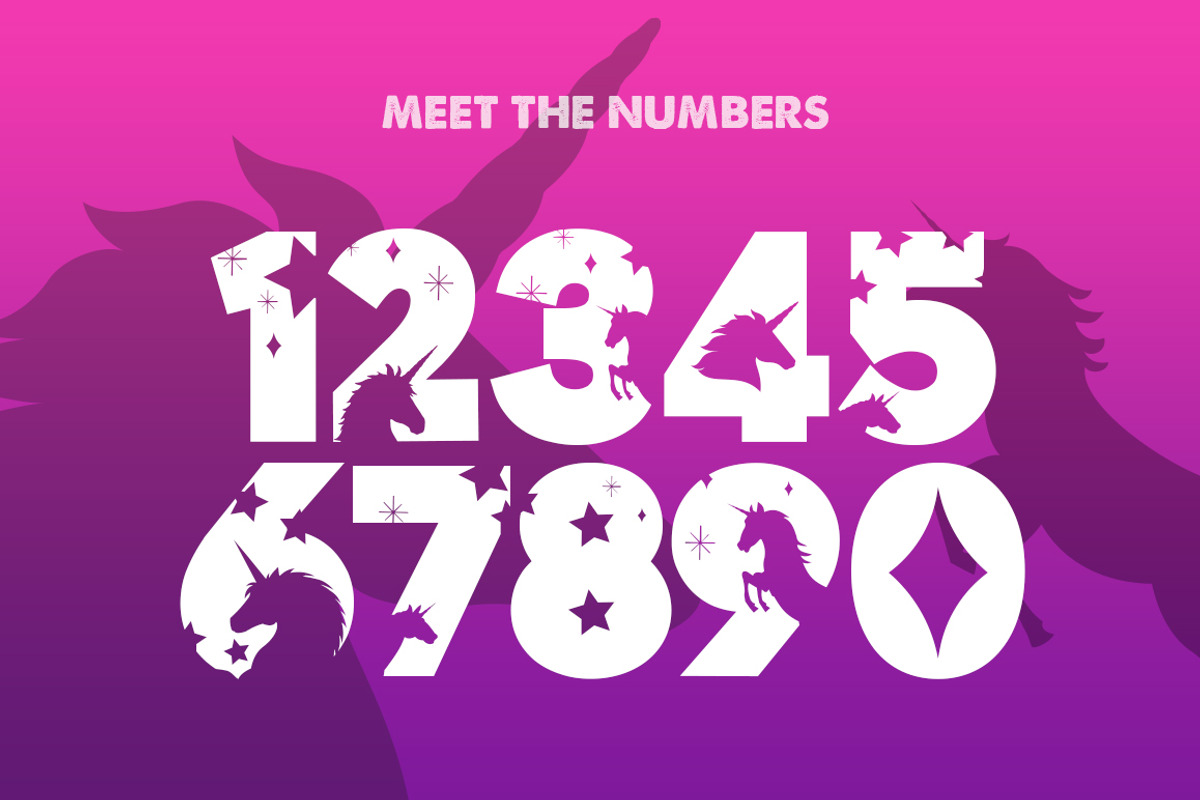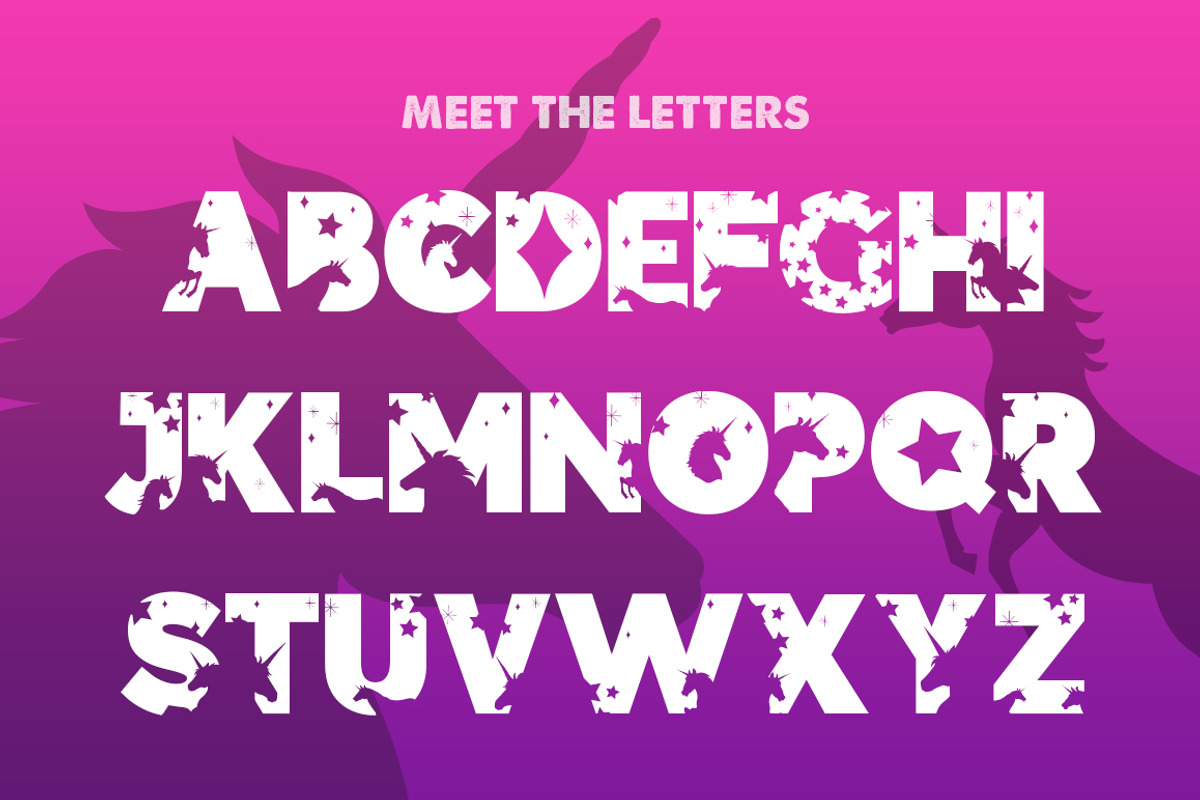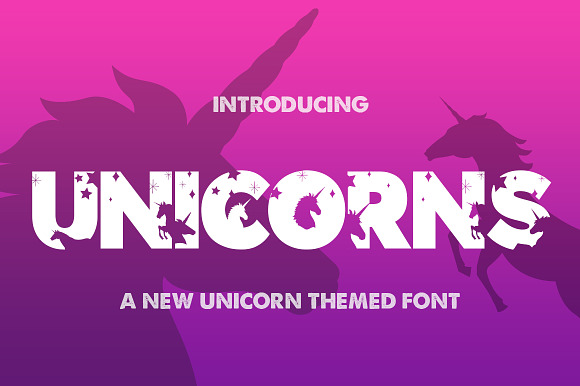
The Unicorns Font
Why The Unicorns Font is worth a look
The Unicorns Font by Salt & Pepper Designs fits naturally into Branding, posters, packaging, typography.